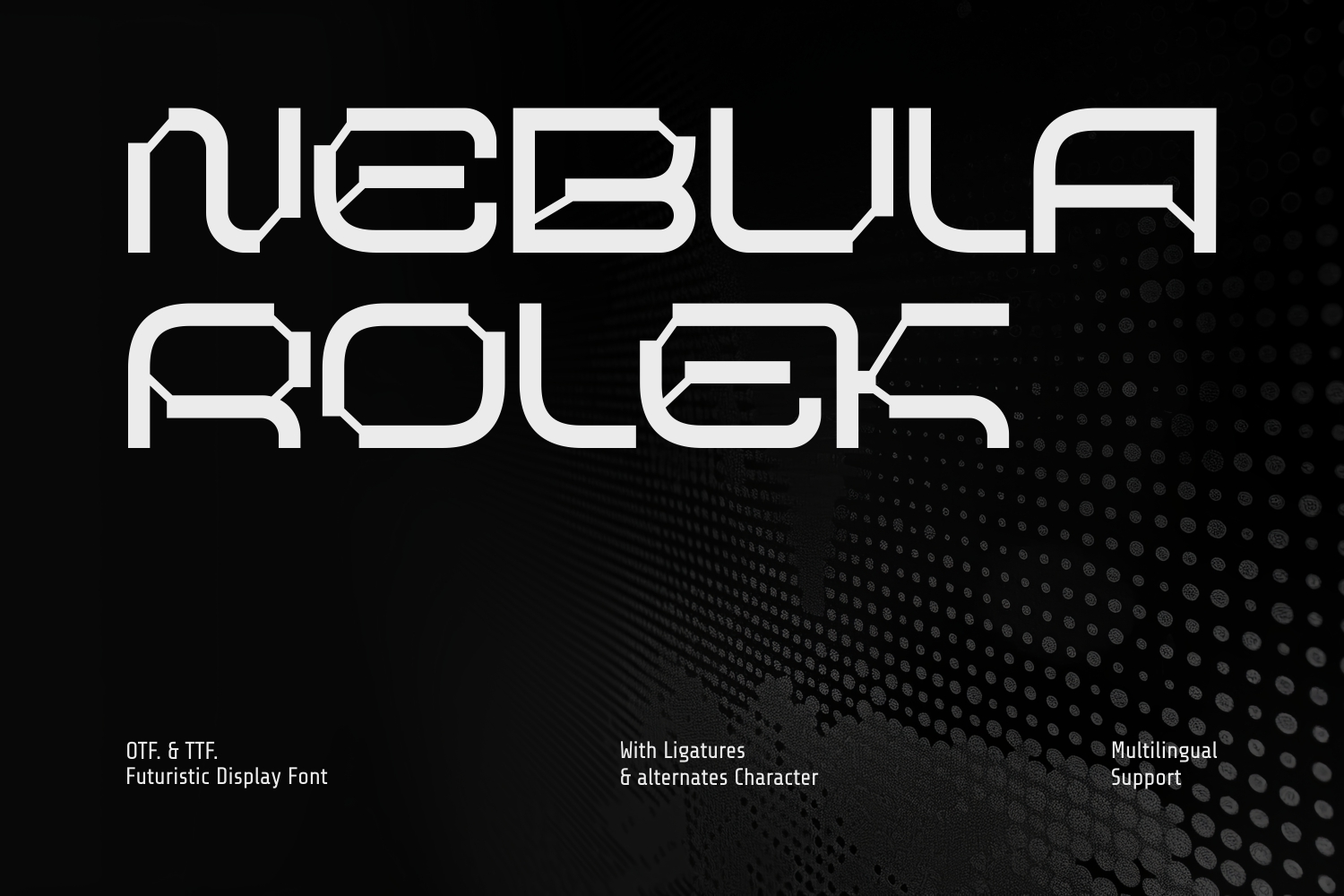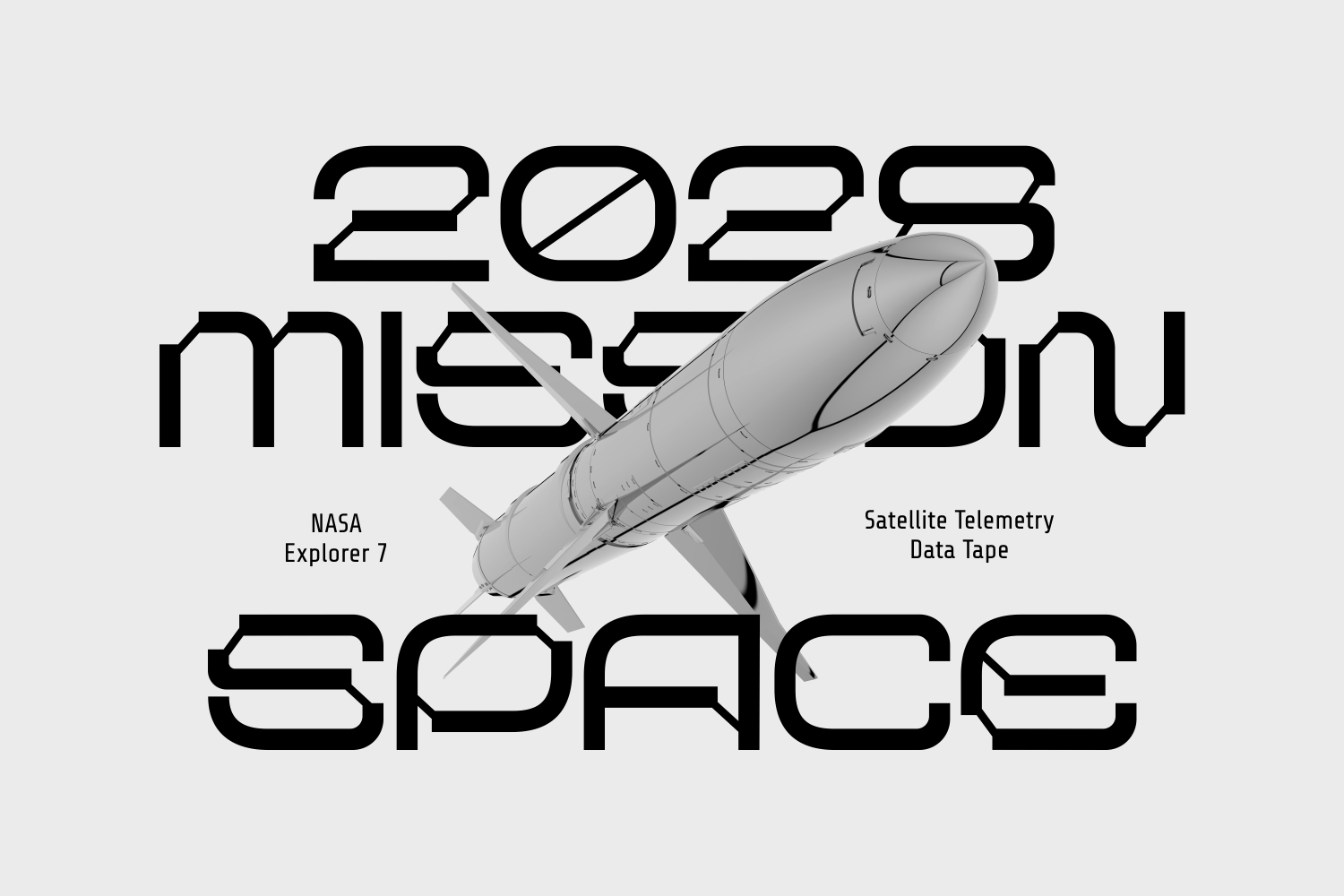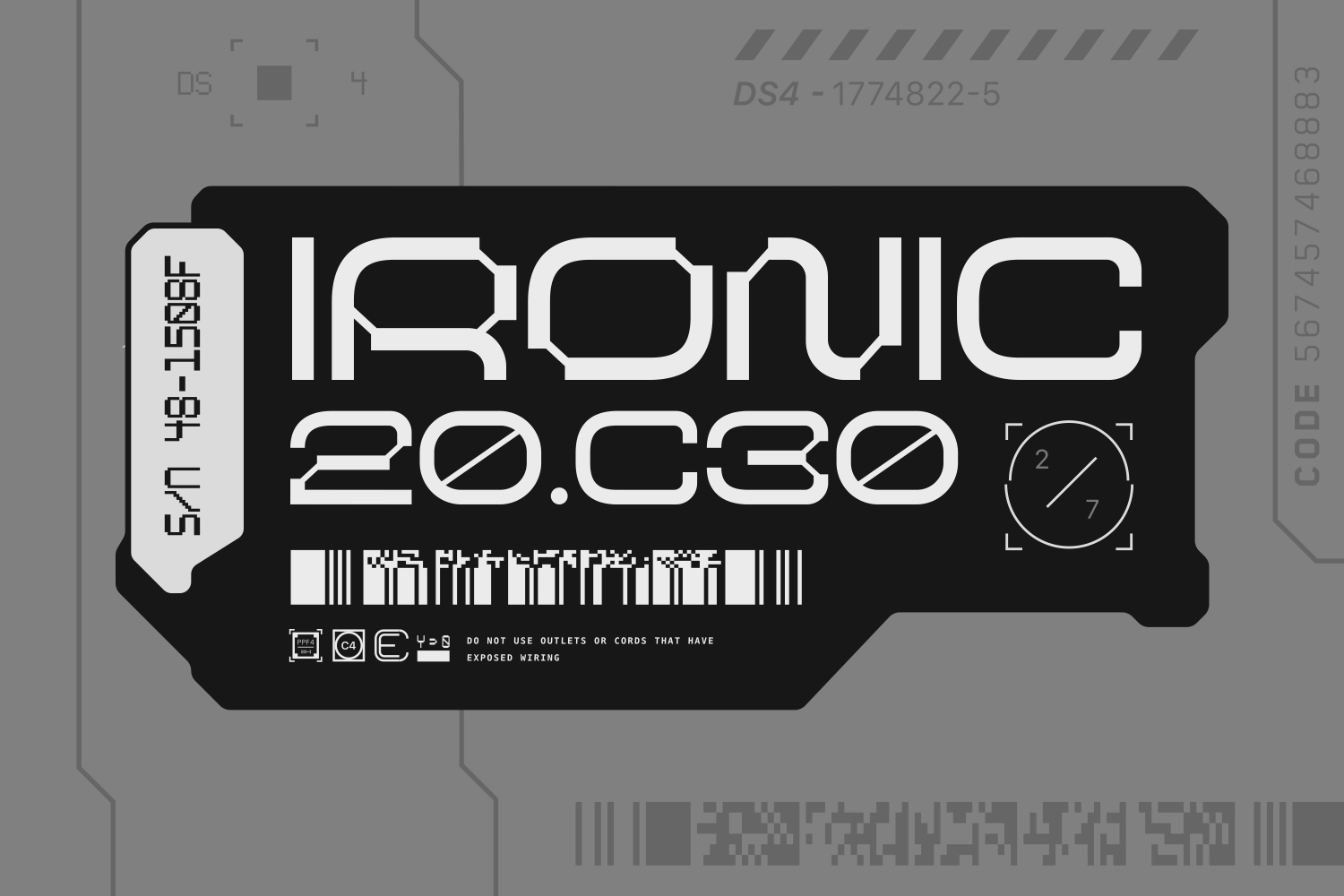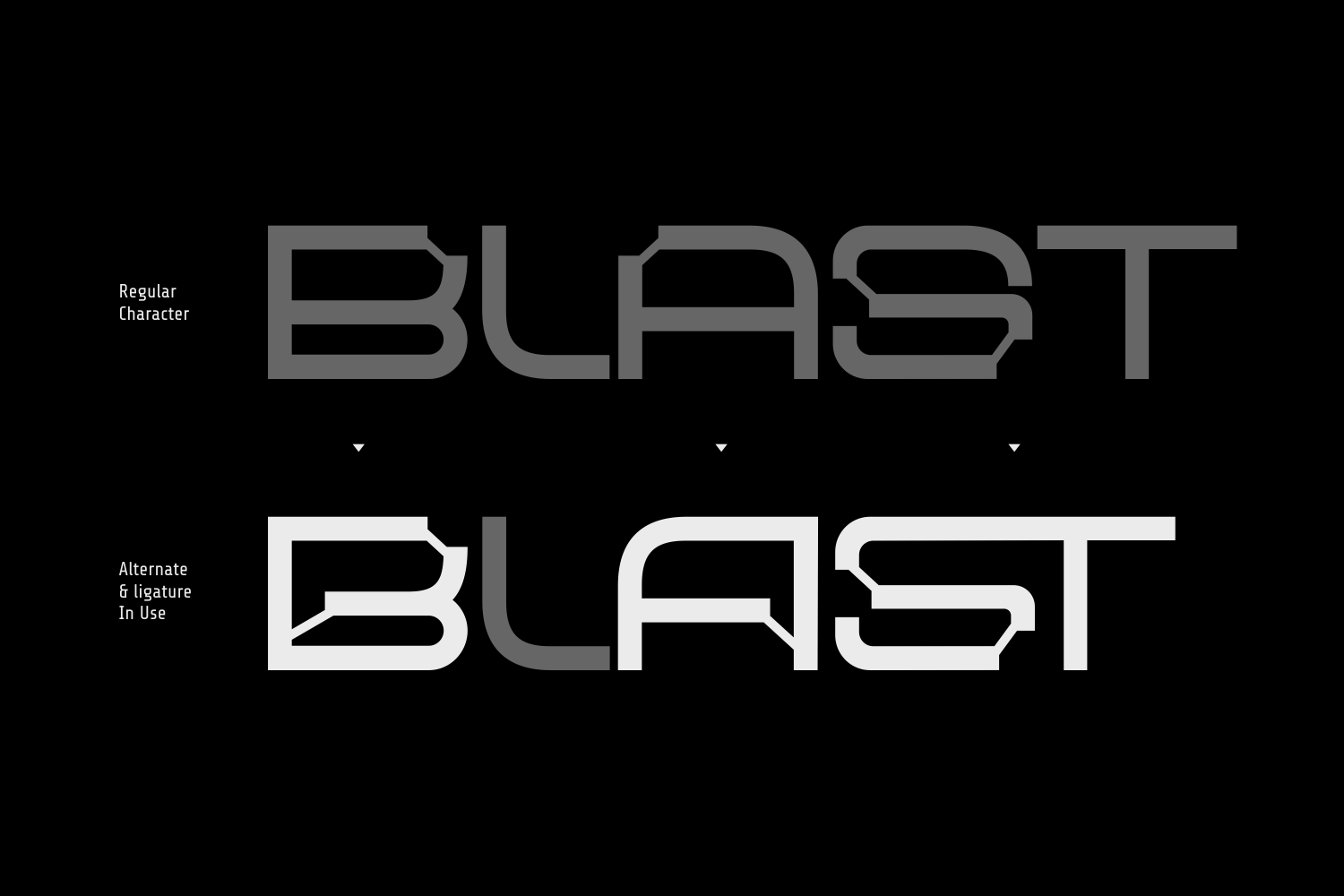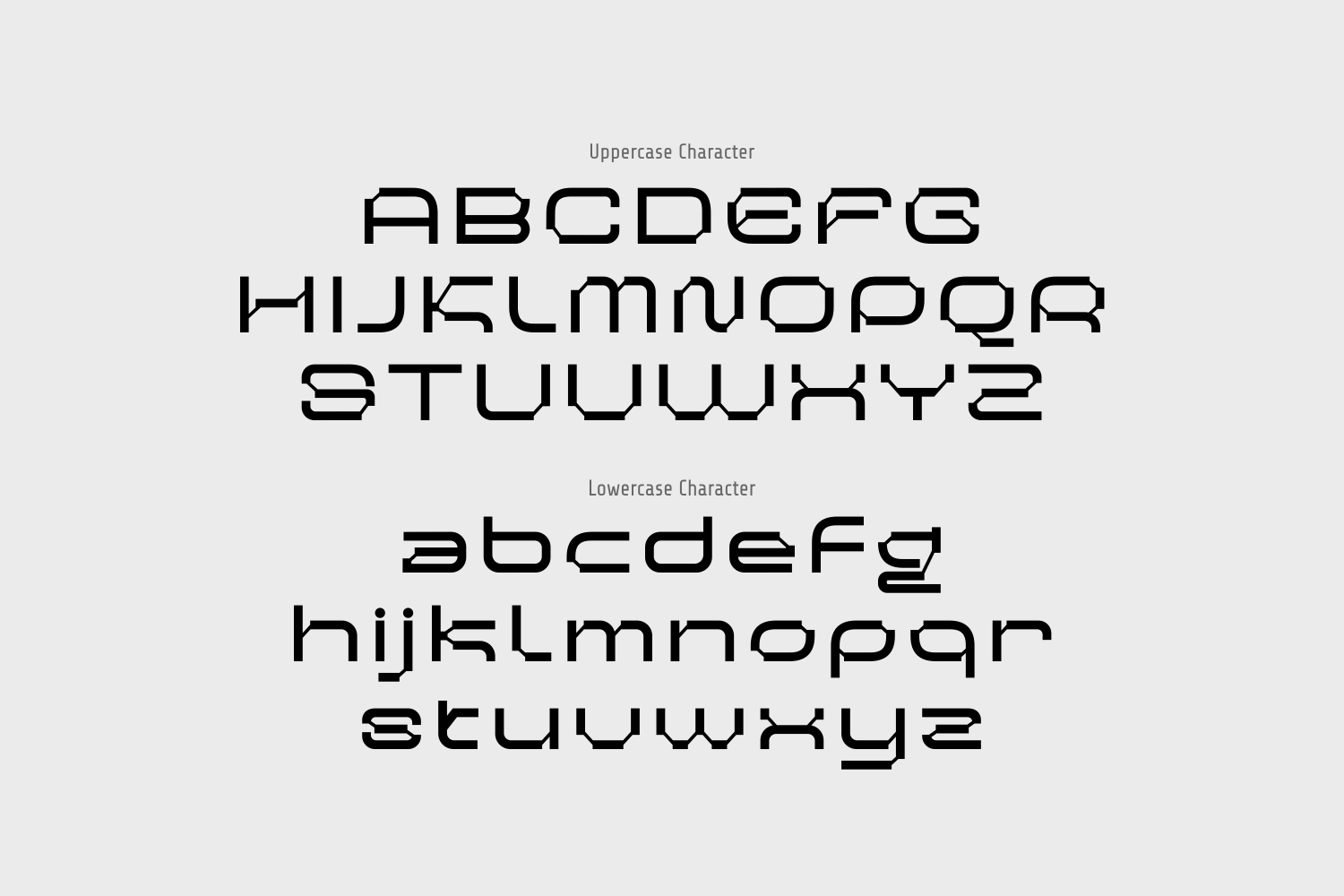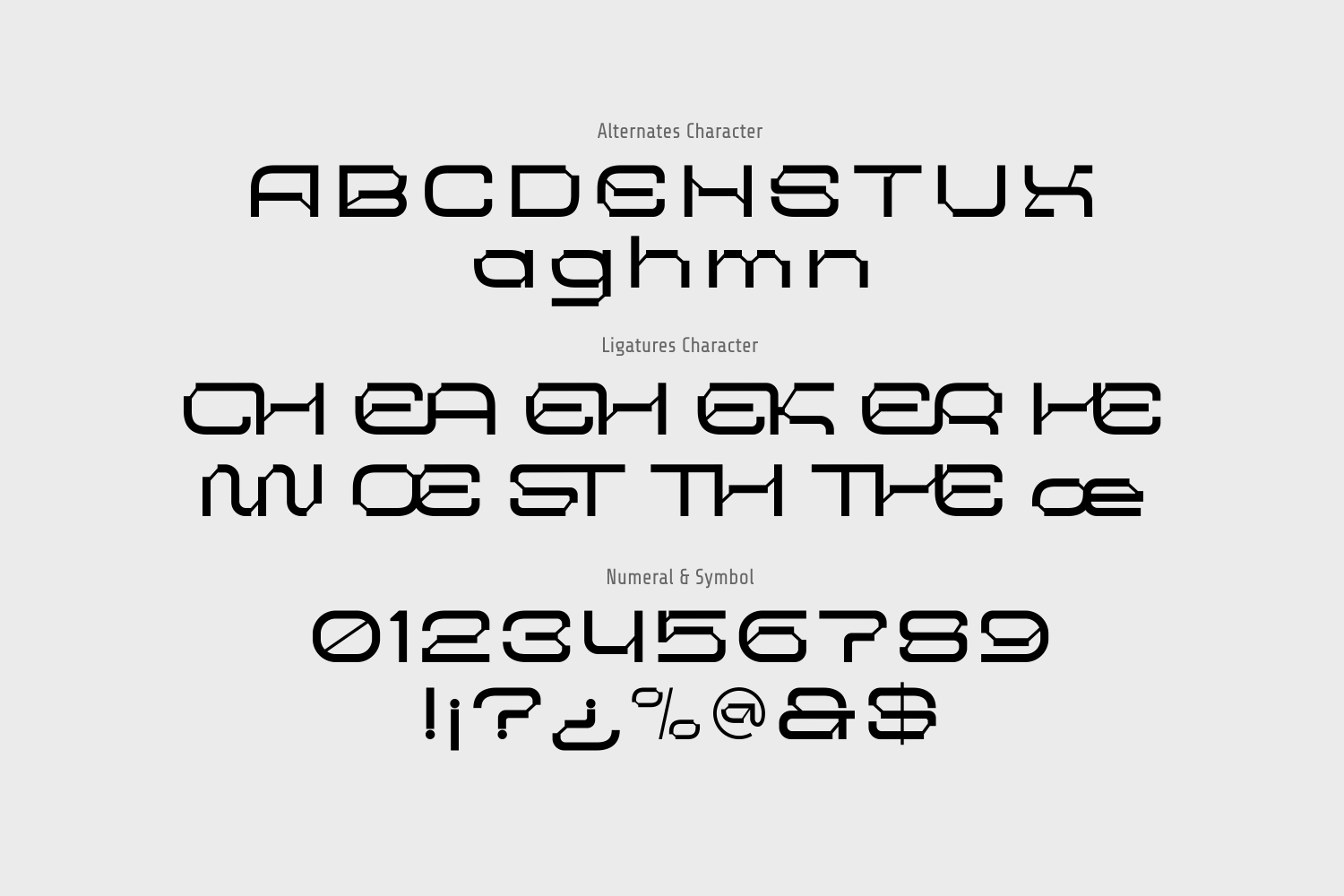
Nebula Rolek is a futuristic display font with a bold, high-tech personality perfect for projects that push the boundaries of design. Its geometric construction, sharp angles, and unique cutouts give it a space-age aesthetic ideal for technology branding, sci-fi posters, esports logos, and digital interfaces. The font comes with a selection of ligatures and alternate characters, enabling endless customization to create standout headlines and modern visual identities.
Engineered for versatility in futuristic themes, Nebula Rolek works seamlessly in both print and digital environments. Its striking letterforms evoke innovation and forward-thinking design, making it a powerful choice for gaming titles, tech startups, and cutting-edge marketing campaigns. With multilingual support and creative alternates, this font empowers designers to craft typography that feels dynamic, bold, and ahead of its time.
Nebula Rolek